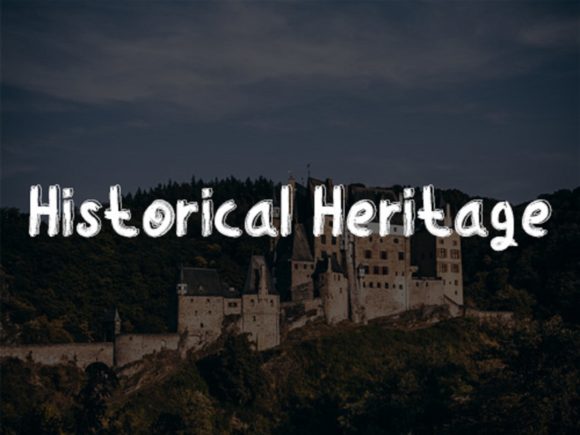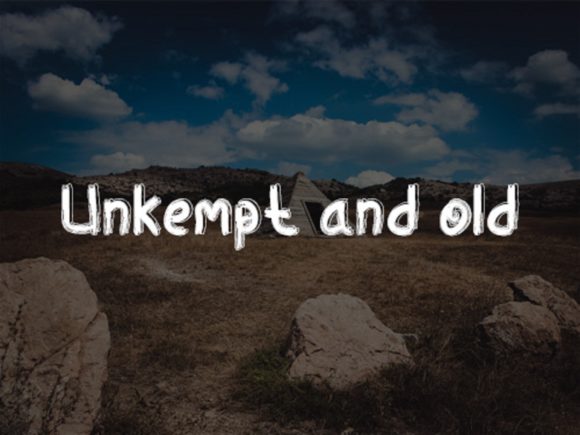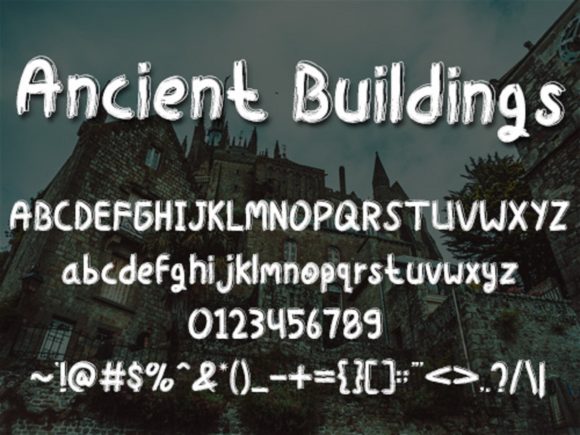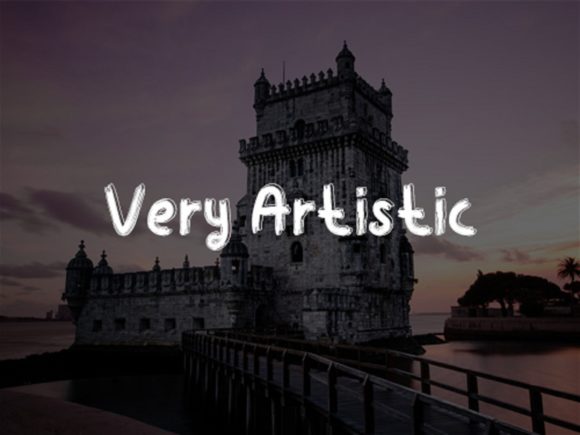
Discover the Charm of Ancient Buildings Font: Elevate Your Designs with a Vintage Touch
Are you a designer, crafter, or digital artist looking for a font that adds a touch of uniqueness and vintage charm to your projects? Look no further than the Ancient Buildings font. This cool and distinctive display font is perfect for a variety of creative endeavors, from crafting and digital designing to presentations and greeting cards making.
What Makes Ancient Buildings Font Stand Out?
The Ancient Buildings font is designed to evoke the essence of history and antiquity, making it an excellent choice for projects that require a vintage or classic look. Its unique characters and stylized letterforms are reminiscent of ancient architectural inscriptions, giving your designs a sense of timelessness and sophistication.
Whether you’re working on a logo, a poster, a greeting card, or a digital graphic, the Ancient Buildings font is sure to add a touch of elegance and refinement. Its versatility and legibility make it an excellent choice for both personal and professional projects.
As a designer or crafter, you’re always on the lookout for fonts that can help you create unique and eye-catching designs. The Ancient Buildings font is an excellent addition to your font library, offering a wide range of creative possibilities.
Use it to create stunning:
- Logos and branding materials: Add a touch of vintage charm to your logo and branding materials, making your business stand out from the crowd.
- Posters and flyers: Create eye-catching posters and flyers that grab attention and convey your message in a unique and stylish way.
- Greeting cards and invitations: Add a touch of elegance and sophistication to your greeting cards and invitations, making them perfect for special occasions.
- Digital graphics and social media posts: Use the Ancient Buildings font to create stunning digital graphics and social media posts that showcase your creativity and style.
Why Choose Ancient Buildings Font?
So, why choose the Ancient Buildings font over other fonts available? Here are just a few reasons:
- Unique and distinctive: The Ancient Buildings font is unlike any other font you’ve seen before. Its stylized letterforms and ancient-inspired characters make it a standout choice for designers and crafters.
- Highly legible: Despite its unique design, the Ancient Buildings font is highly legible, making it perfect for use in a variety of creative projects.
- Versatile: The Ancient Buildings font is versatile and can be used in a wide range of creative projects, from logos and branding materials to posters, flyers, and digital graphics.
Tips for Using Ancient Buildings Font
To get the most out of the Ancient Buildings font, here are a few tips to keep in mind:
- Use it sparingly: Because of its unique design, the Ancient Buildings font can be overwhelming if used excessively. Use it sparingly to add a touch of vintage charm to your designs.
- Experiment with colors and textures: The Ancient Buildings font looks great in a variety of colors and textures. Experiment with different combinations to find the one that works best for your project.
- Pair it with other fonts: The Ancient Buildings font pairs well with other fonts, especially sans-serif fonts. Experiment with different font combinations to create a unique and stylish look.
The Ancient Buildings font is a unique and versatile display font that’s perfect for designers, crafters, and digital artists looking to add a touch of vintage charm to their projects. With its stylized letterforms and ancient-inspired characters, it’s sure to make your designs stand out from the crowd.